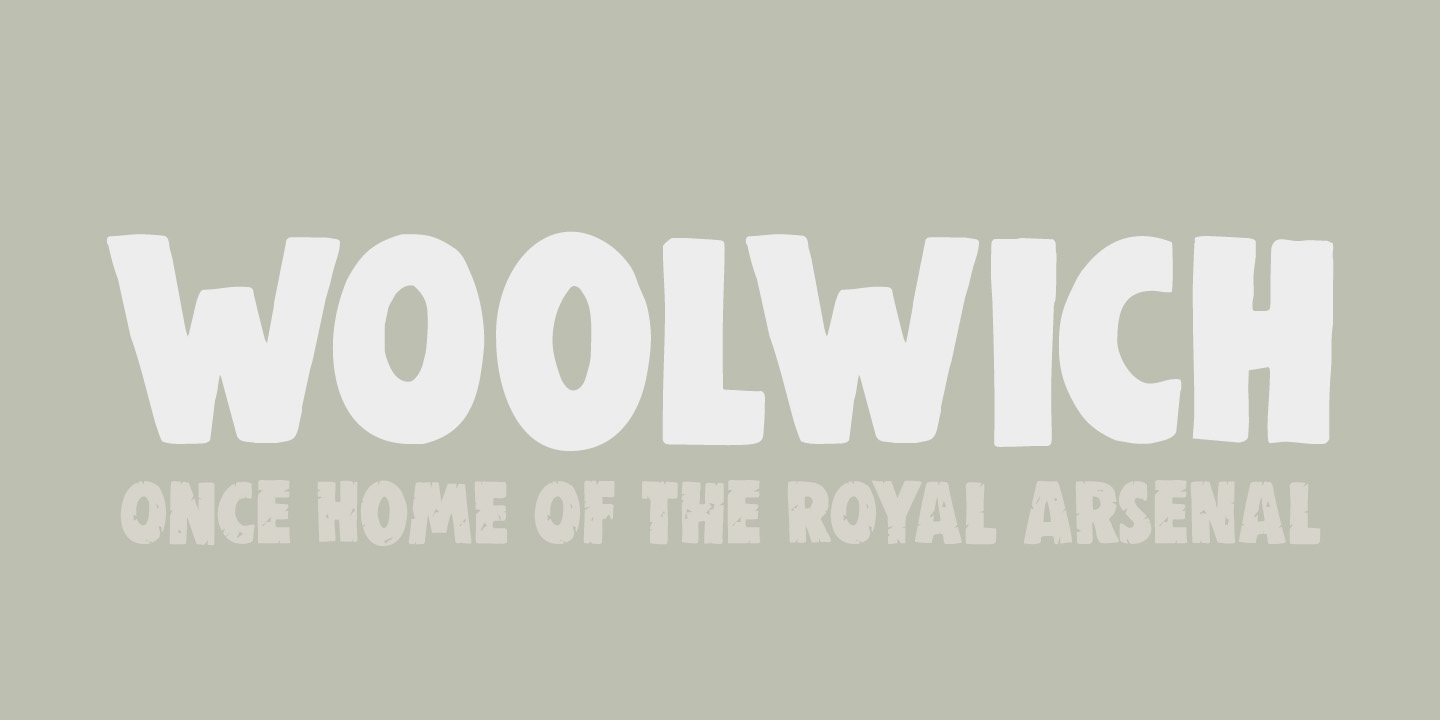
Woolwich
About Woolwich
Woolwich is a jolly fine display font, named after a district in south-east London. Woolwich, somewhat inspired by Futura condensed, was completely made by hand and comes in a clean and an eroded version. It is highly legible and will certainly make your…